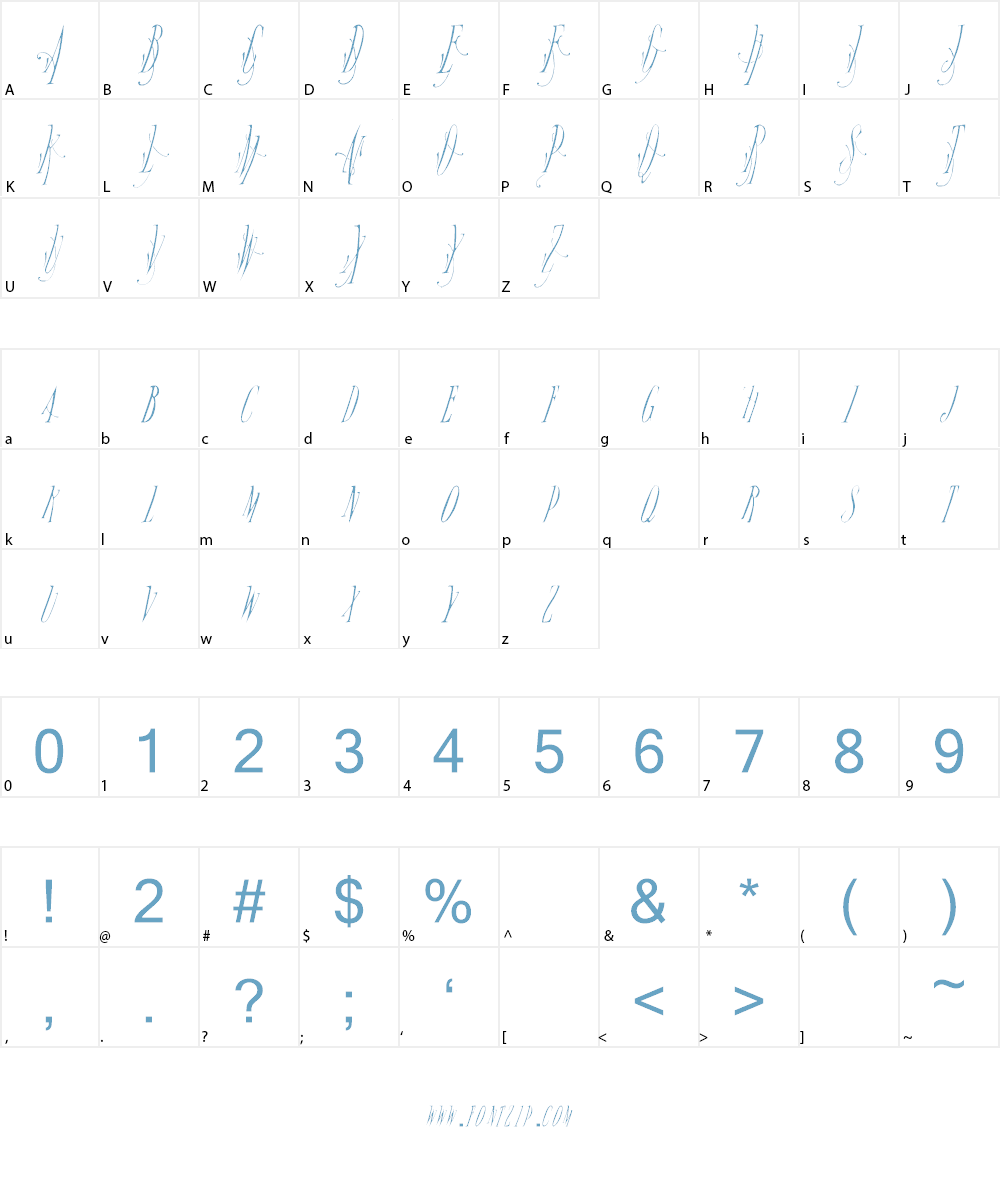
Another early 1900's font (from the same company who drew the 'Elite' monograms see below), reprinted in '130 Alphabets & Other Signs, No. 1' (Shambala, Boston, 1995), converted into a font by myself. It was initially used to create monograms - combined letters. I converted it for my own usage - however the result was so stunning I had to share it. This was my second font with Fontographer, and turned out beautifully. The upper case is beautifully ornated: there is also a simplified lowercase so the font could be used for other things than initials. The alphabet is from p180.